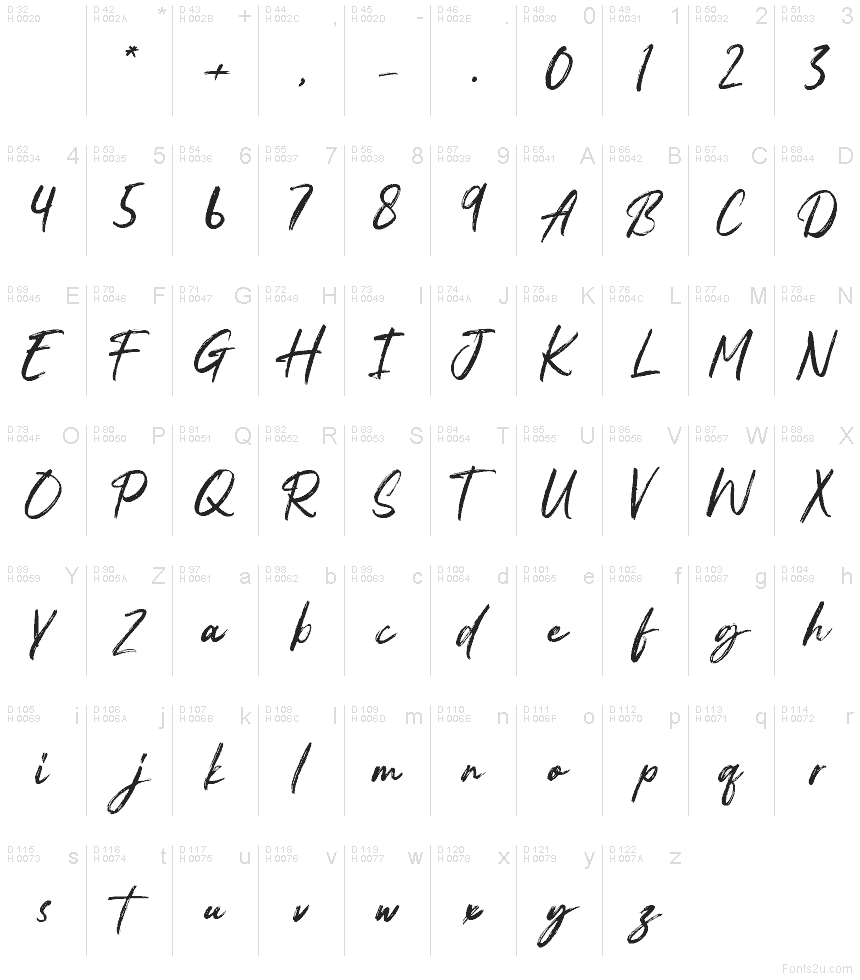
Averna En Rails Demo Normal
Averna En Rails font by Dedi Setiyawan is a free brush script typeface with a wild, inky streak that looks freshly swiped across paper. Its quick, slanted motion and gritty, dry-brush texture catch light like wet paint—bold where the pressure hits, whisper-thin where the stroke lifts. The letters feel fast and effortless, yet the spacing stays readable, so you get drama without chaos.
Using Averna En Rails, headlines grab attention and keep it—great for logos, packaging, poster titles, social media graphics, event flyers, and T‑shirt designs. The grainy edges add tactile bite at larger sizes while still holding together in short subheads. Pair this free font with a clean geometric sans for body copy, and let the brush script be the spark.